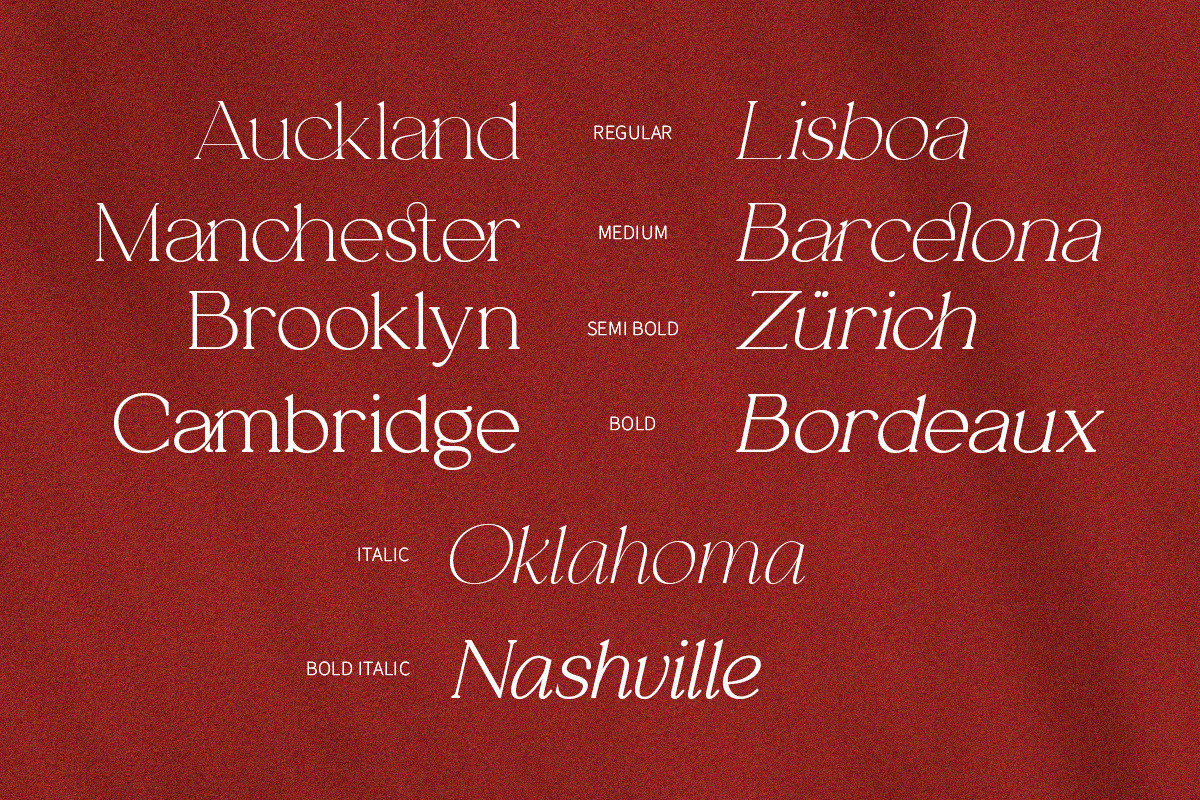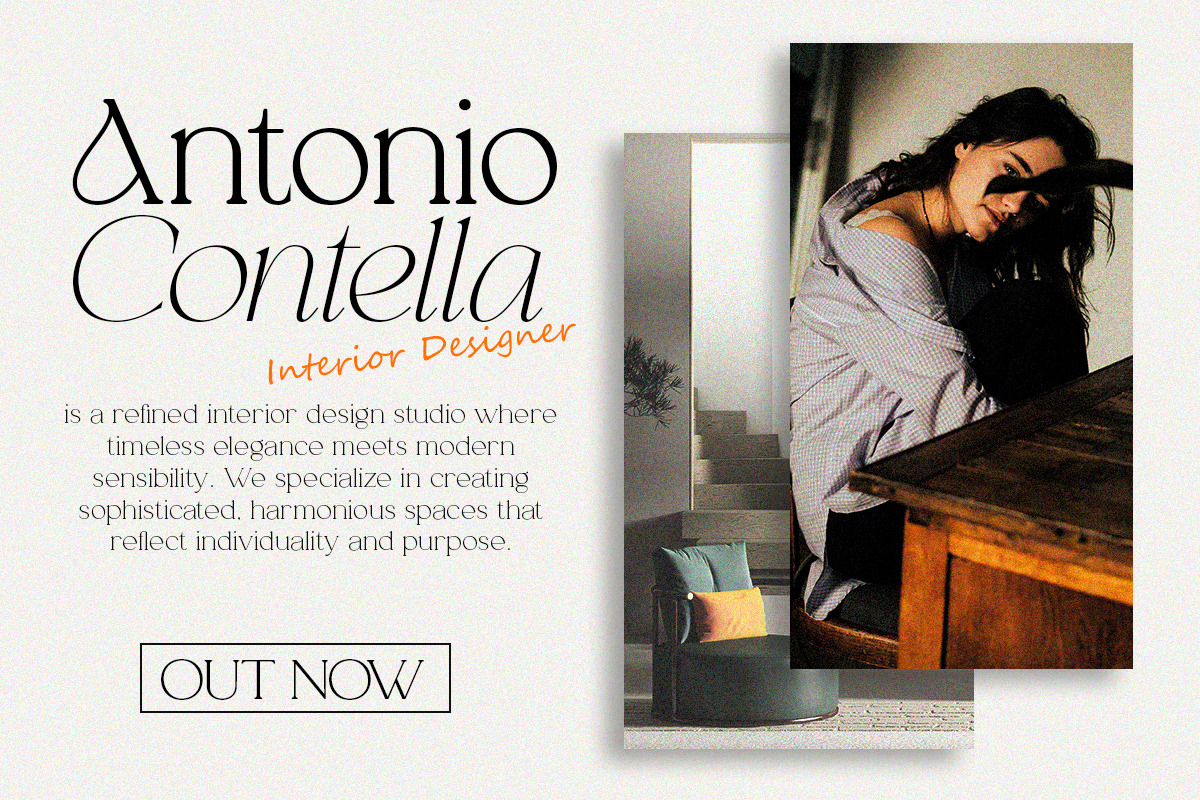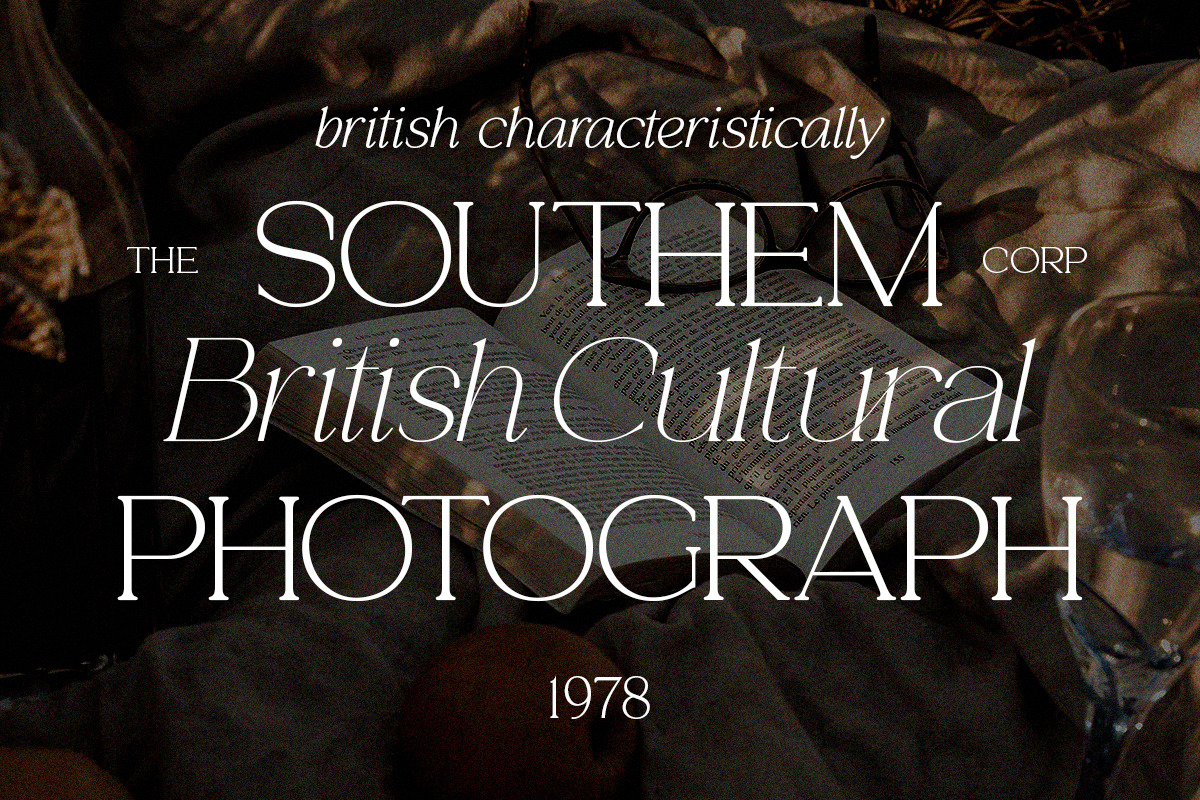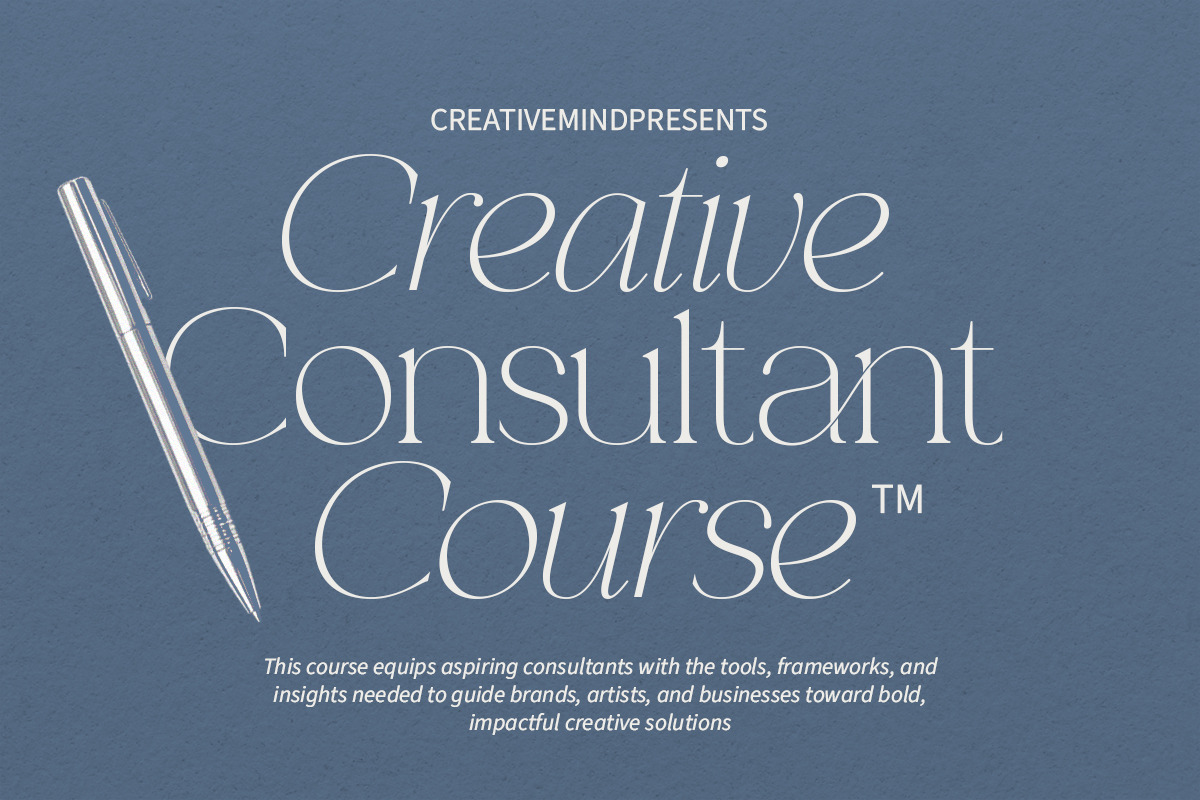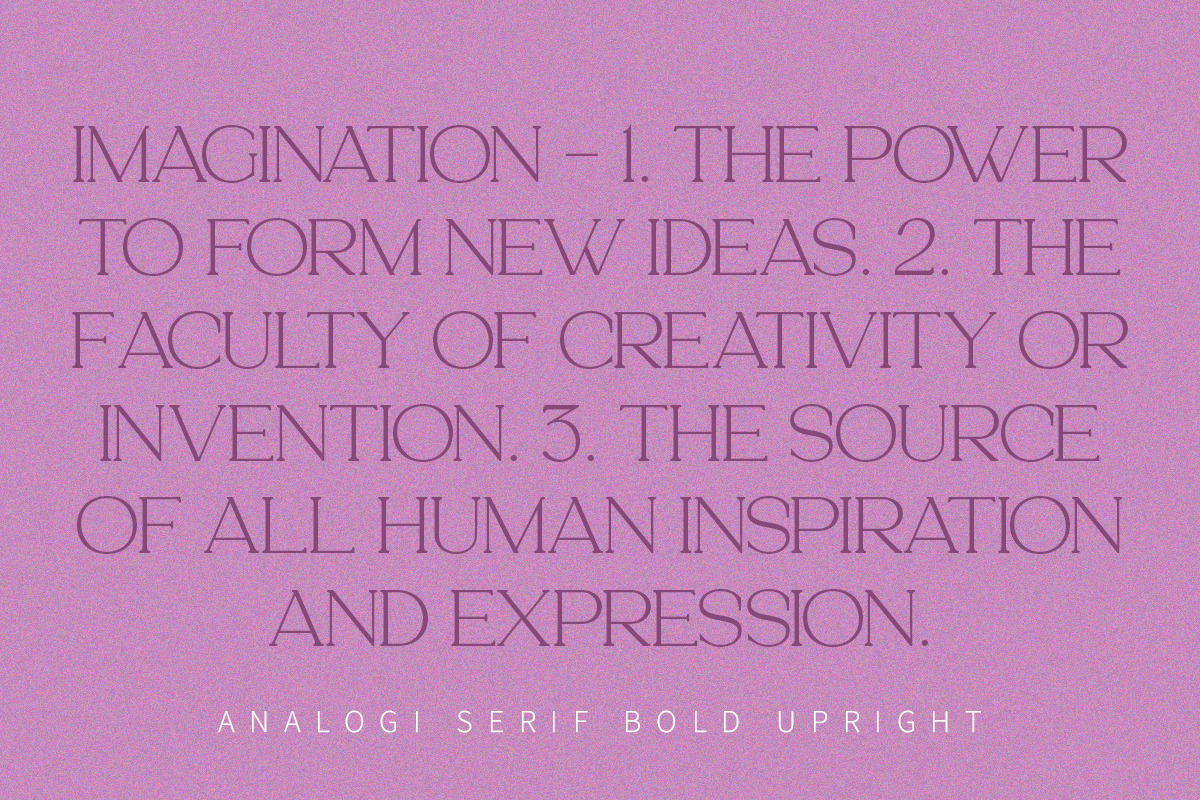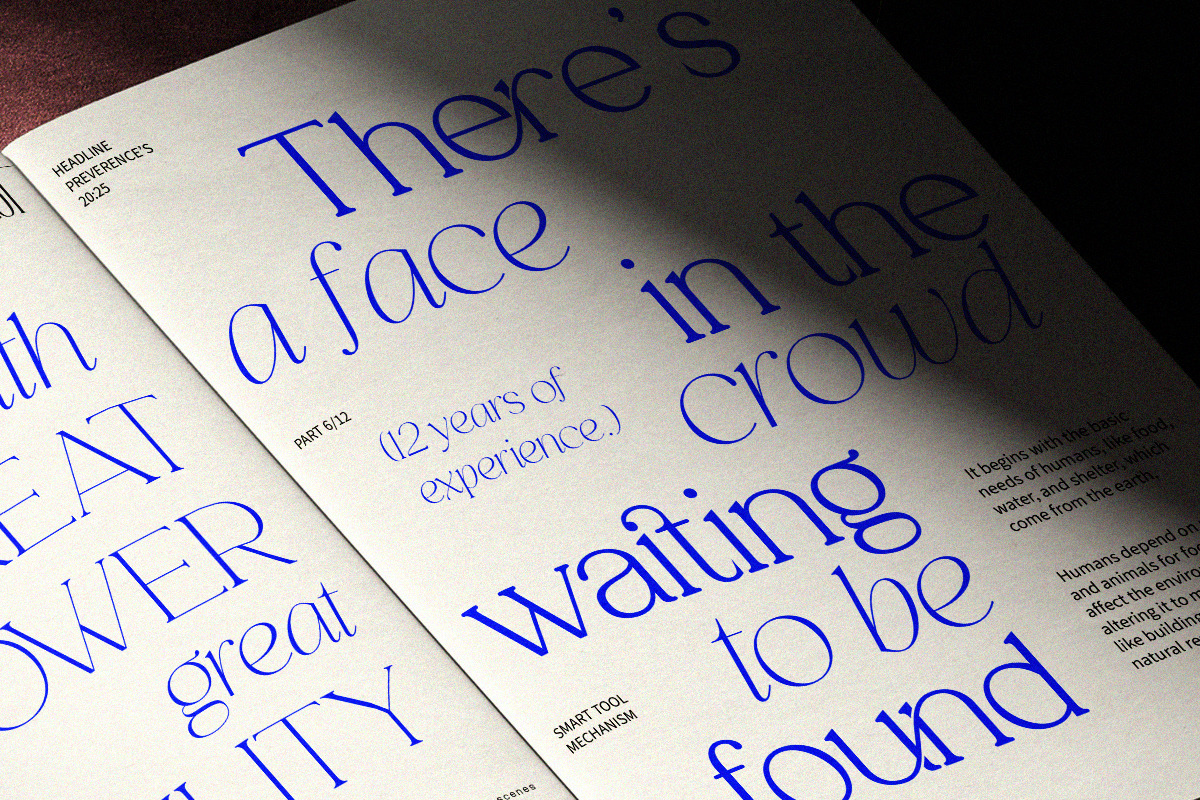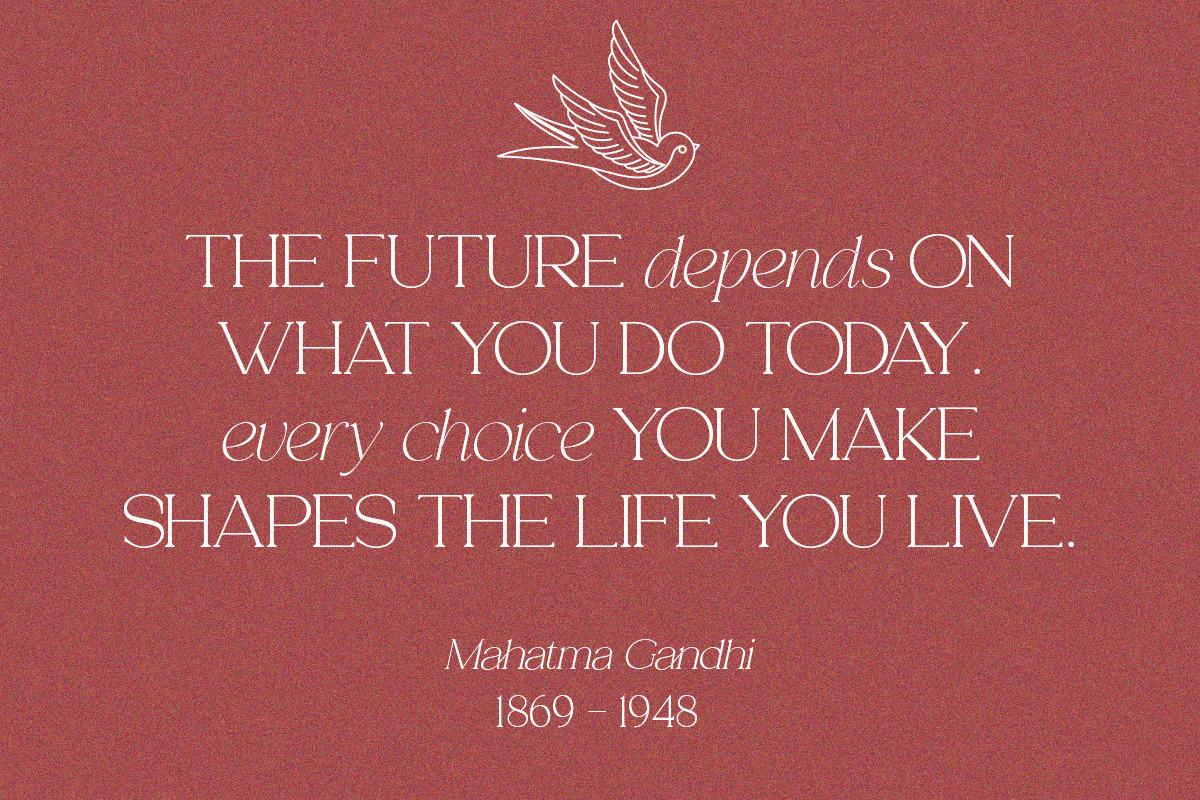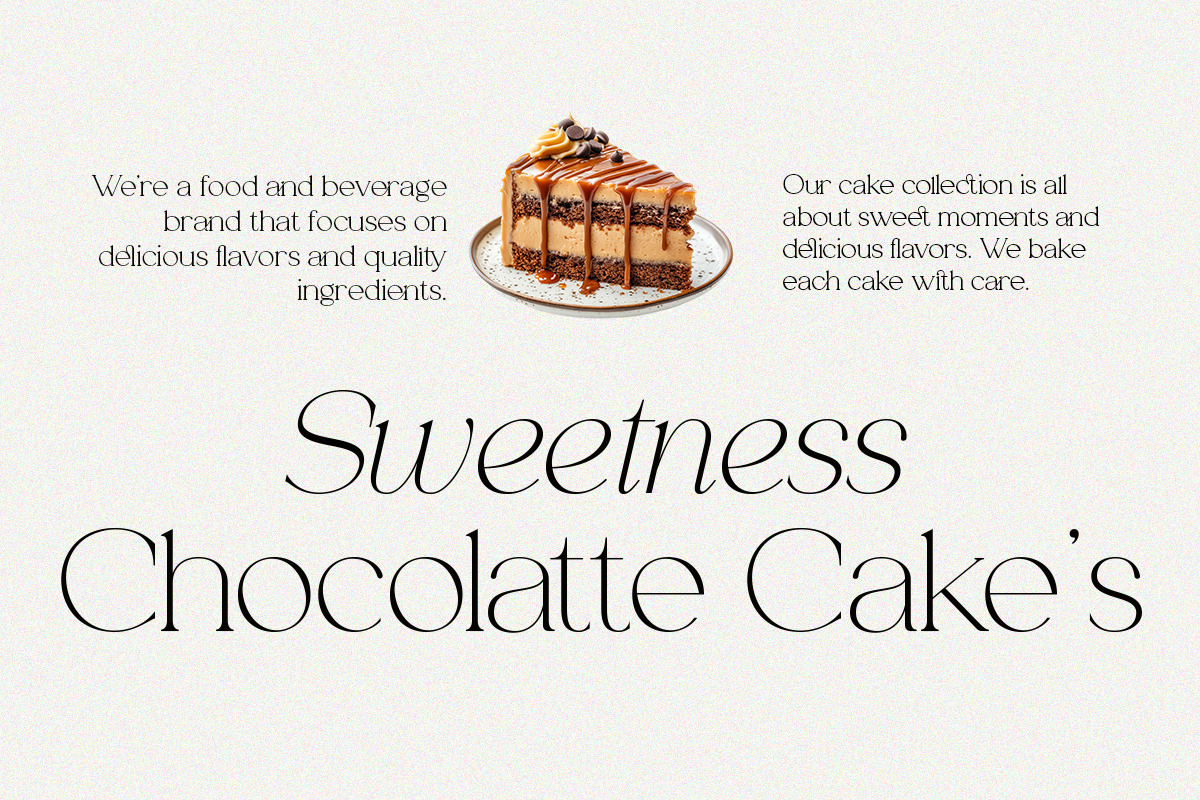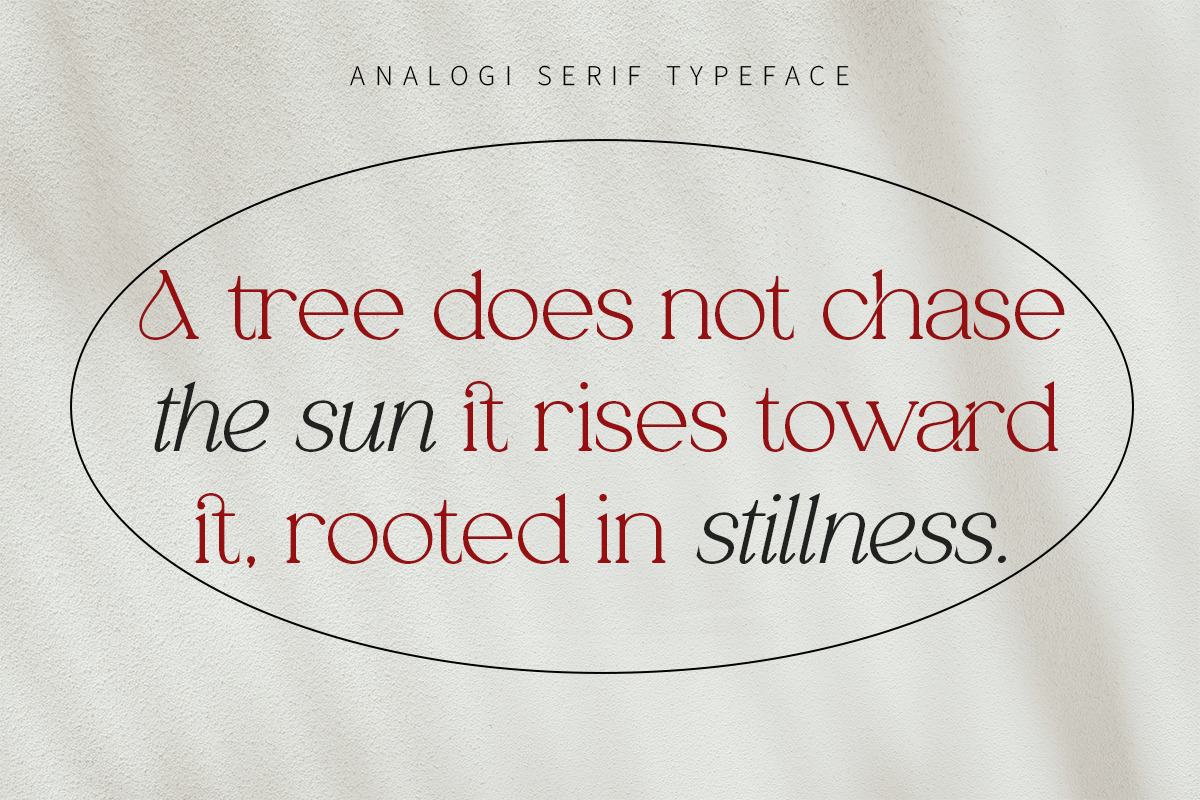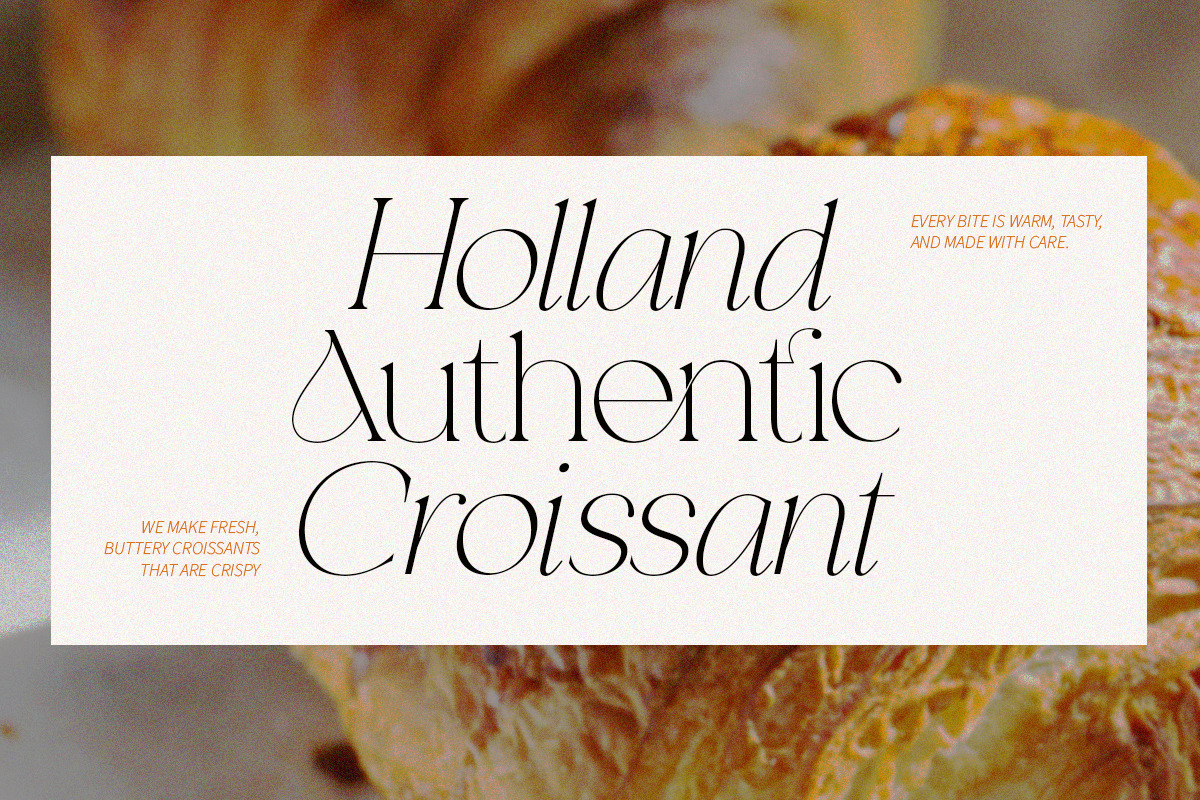
Analogi serif
Analogi Serif is an experimental serif display typeface designed with an elegant, artistic, and contemporary character. Inspired by classic aesthetics but developed with a modern approach, Analogi Serif comes with smooth curves, sharp details, and a strong feminine touch, making it the perfect choice for design projects that require a luxurious and exclusive feel.
This font consists of 10 complete style files, including Upright and Italic versions and has 2 different Italic styles, and is equipped with many ligatures that enrich the beauty of the typography in every letter combination.
Analogi Serif provides extraordinary flexibility for typographic exploration in various design contexts.
Equipped with rich and diverse ligatures, it allows for aesthetically unified letter combinations, ideal for expressive title and logo compositions.